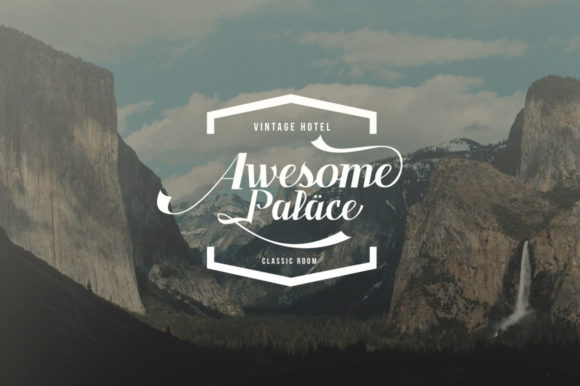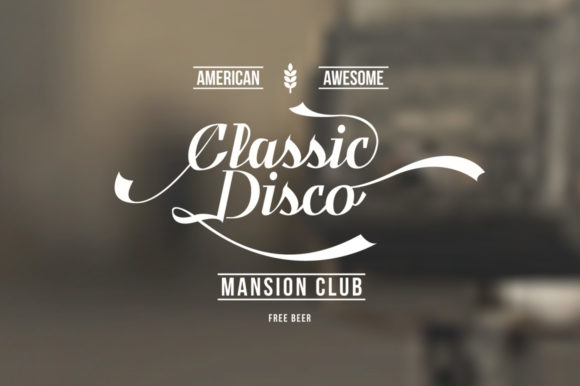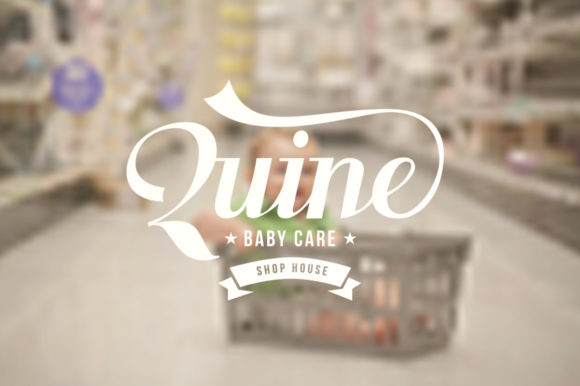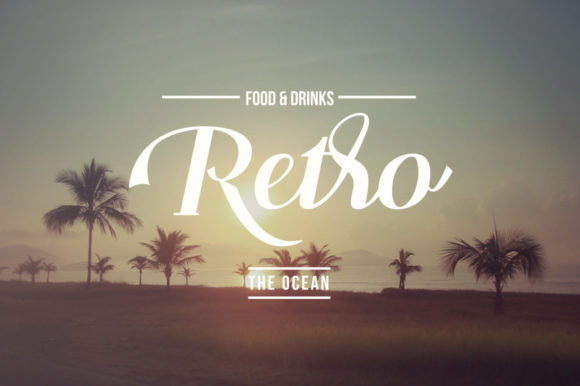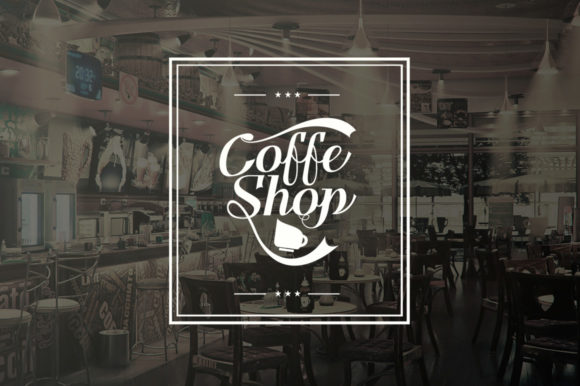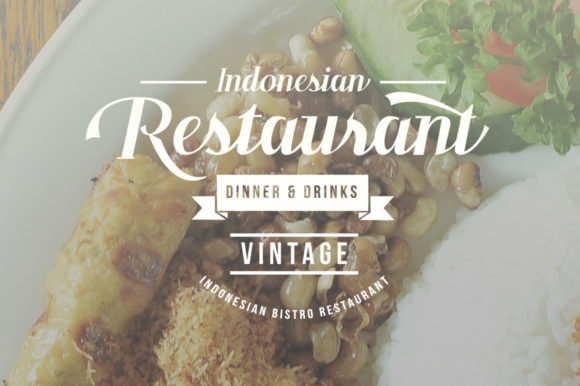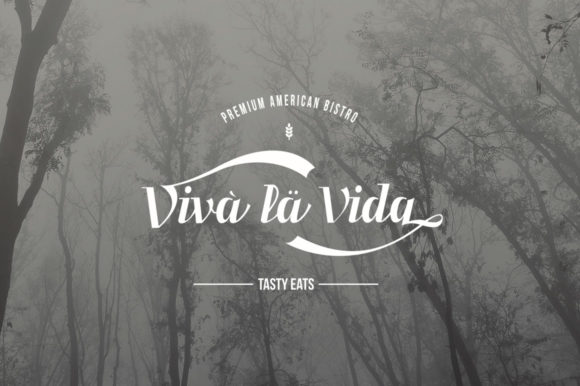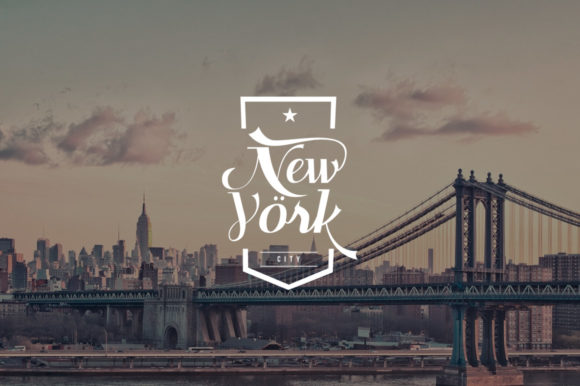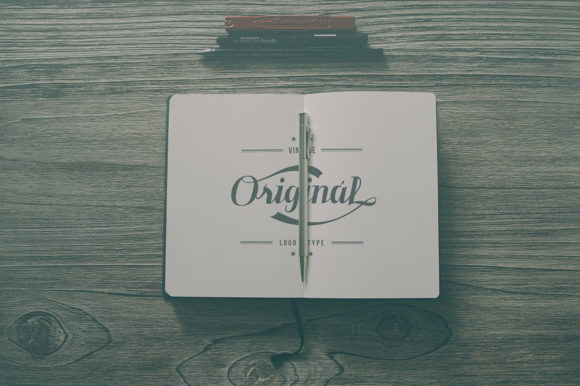
HomeScript FontsBenihana Font Script Fonts Benihana Font FacebookXPinterestWhatsApp Benihana Font Poster 2 Benihana Font Poster 3 Benihana Font Poster 4 Benihana Font Poster 5 Benihana Font Poster 6 Benihana Font Poster 7 Benihana Font Poster 8 Benihana Font Poster 9 Benihana Font Poster 10 About Benihana Font Benihana is a classy and cool handwritten font with a unique style. Fall in love with its modern elegance. DOWNLOAD ON CREATIVE FABRICAThis font is sold and delivered by Creative Fabrica. Font Canyon may earn a commission if you buy through this link. People also explored Vintage Stories Font Crake Font Ollister Font Rabbit Island Font Mikhail Font Learn to Fly Font Over the Rainbow Font With Love Font Juwita Font 407 0 TagsBenihana Font Previous articleMasstro FontNext articleKarenina Font LEAVE A REPLY Cancel reply Comment: Please enter your comment! Name:* Please enter your name here Email:* You have entered an incorrect email address! Please enter your email address here Website: Save my name, email, and website in this browser for the next time I comment. Personal Use Free Alinda Personal Use Free Read more about this font Mixed Artistry Personal Use Free Read more about this font Rocketto Personal Use Free Read more about this font Mustica Personal Use Free Read more about this font BLOG Best Fonts for T-Shirt Design – Top 2025 Picks In 2025, t-shirt design has become more than just fashion—it's a form of self-expression. Whether you're... Where to Buy American Fonts Online in 2024 How to Install and Use Fonts on Windows, macOS, and Web Projects Elegant Wedding Invitation Fonts – Handwritten & Script Fonts